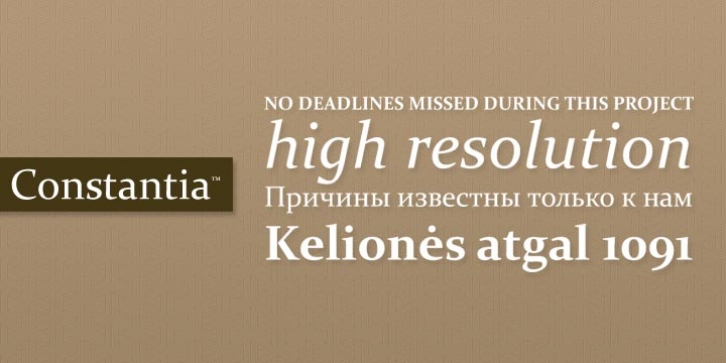
Constantia is a modulated wedge-serif typeface designed primarily for continuous text in both electronic and paper publishing. The design responds to the recent narrowing of the gap between screen readability and traditional print media, exploiting specific aspects of the most recent advances in ClearType rendering, such as sub-pixel positioning. The classic proportions of relatively small x-height and long extenders make Constantia ideal for book and journal publishing, while the slight squareness and open counters ensure that it remains legible even at small sizes.